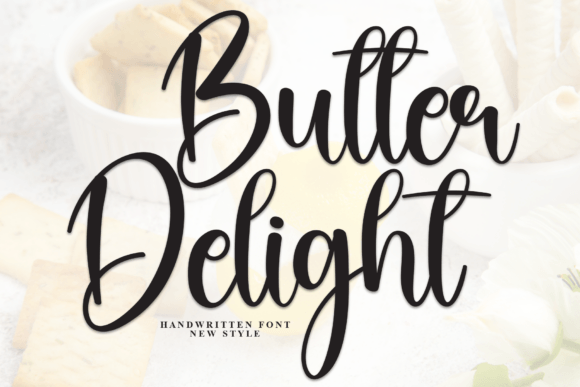
The Butter Delight Font: A Charming Handwritten Style for Creative Projects
I’ll never forget the time I was working on a branding project for a whimsical bakery, and I just couldn’t find the perfect font to capture their playful, artisanal vibe. The client wanted something that felt warm, friendly, and uniquely charming. That’s when I stumbled upon the Butter Delight font, and it was love at first sight! ✨
With its smooth, handwritten style and soft curves, Butter Delight instantly added a personal touch to my design. The flowing letters and gentle texture evoke a sense of nostalgia and approachability, making it perfect for creative projects that need a dash of whimsy. In this article, I’ll share my honest review of the Butter Delight font, provide a practical guide on how to use it, and explore similar fonts you might love.
• ✅ Unique and eye-catching: Butter Delight stands out from more traditional fonts, adding a touch of personality to any design.
• ✅ Highly versatile: Works beautifully for titles, headings, and short paragraphs, making it perfect for branding, packaging, and marketing materials.
• ✅ Easy on the eyes: The smooth, flowing letters are gentle on the reader, making it ideal for digital and print applications.
• ✅ OpenType features: Offers a range of stylistic alternates, glyphs, and ligatures to give your design an extra creative boost.
While Butter Delight is an amazing font, there are a few things to keep in mind: ⚠️
• 🤔 Legibility at small sizes: While it’s stunning at larger sizes, the font can become a bit tricky to read at smaller sizes (below 10pt). Use it for headlines or short paragraphs for best results.
• ⚠️ Limited use in body text: Due to its unique style, Butter Delight might not be the best choice for long-form body text. Stick to shorter passages or use it as an accent font.
The Story Behind Butter Delight
Butter Delight was designed by a talented type designer who wanted to create a font that captured the warmth and playfulness of handwritten letters. Inspired by traditional calligraphy and modern digital art, Butter Delight is the result of a passion project that aimed to bring a touch of whimsy to the world of typography.
Q: Is Butter Delight suitable for body text?
A: While it’s beautiful, Butter Delight is best used for headlines, titles, and short paragraphs. For longer body text, consider a more traditional font.